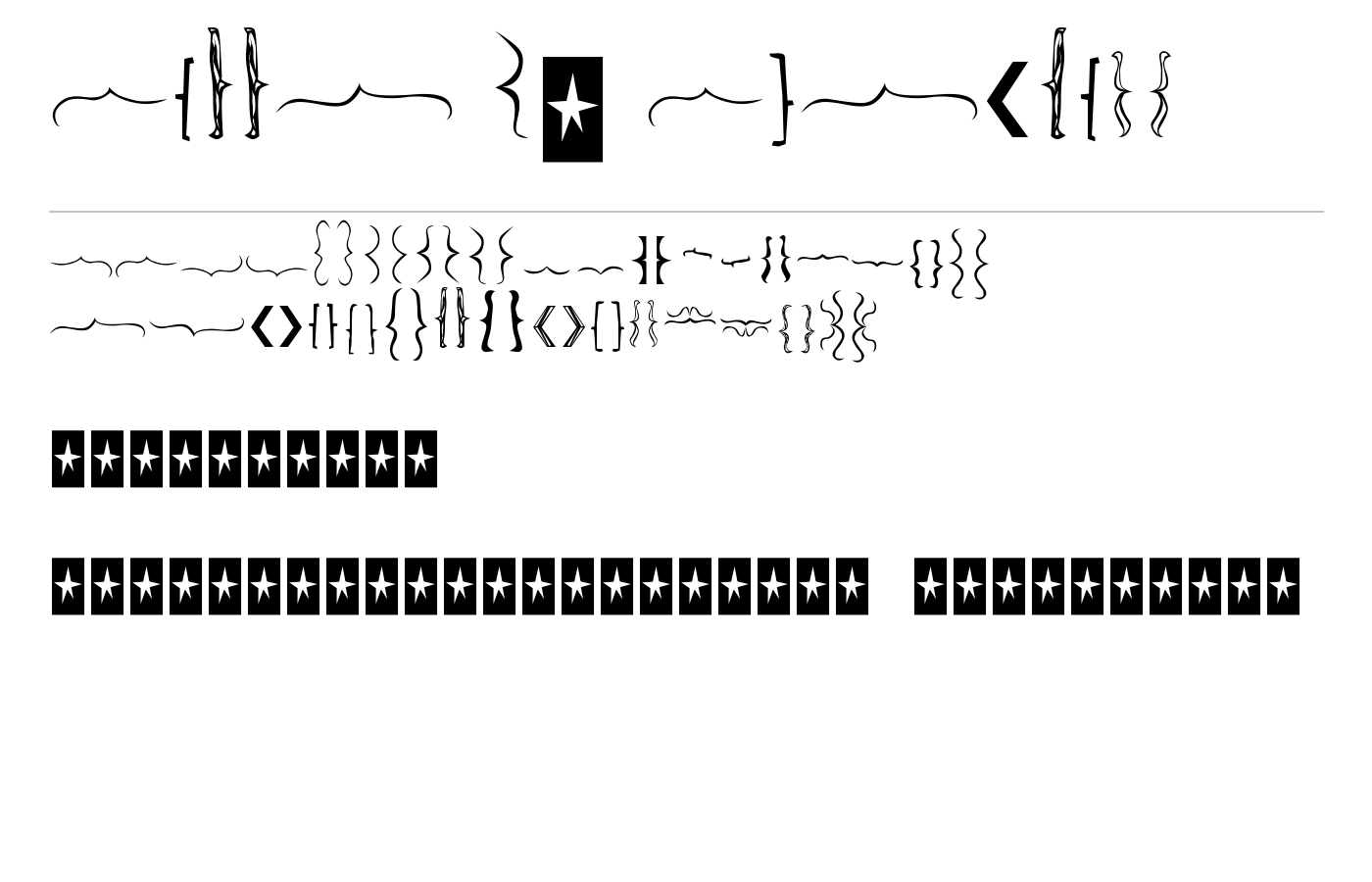
Bella K. Brackets is a decorative display font featuring uniquely stylized brackets and ornaments with elegant, flowing curves and sharp edges. Its intricate, artistic design makes it perfect for adding a vintage or whimsical touch to invitations, logos, and creative projects that seek a distinctive and decorative flair. This font works best in large sizes where its detailed character shapes can shine as ornamental elements or focal points.
Bella K. Brackets Font
About Bella K. Brackets Font